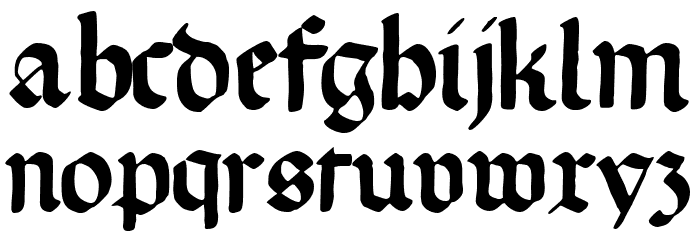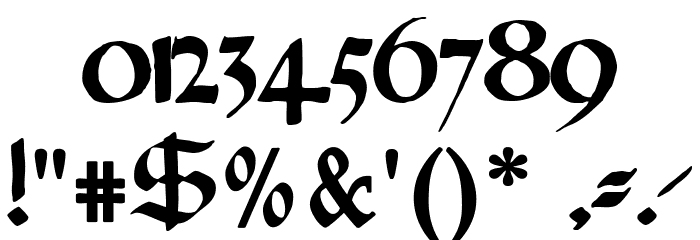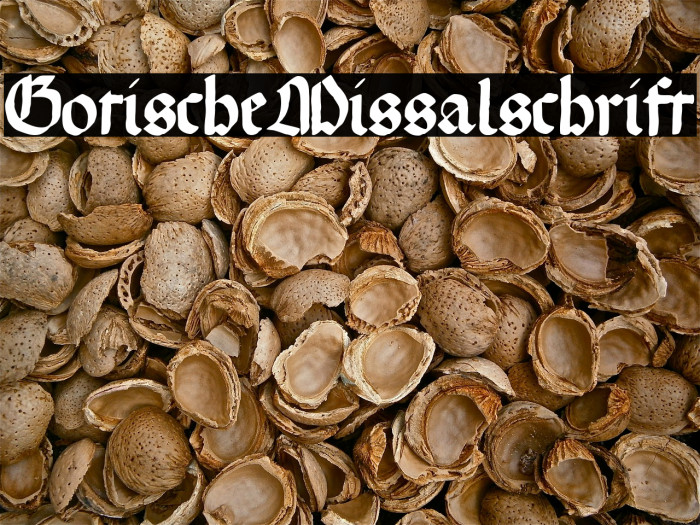
GotischeMissalschrift Font
This font is a striking example of Blackletter style, characterized by its intricate and ornate design. The letters are bold and angular, with sharp edges and a medieval aesthetic. The uppercase letters feature elaborate flourishes, while the lowercase letters maintain a consistent thickness, adding to the overall dramatic appearance. The numbers and special characters are equally stylized, maintaining the font's cohesive look. This font evokes a sense of history and tradition, making it ideal for projects that require a touch of elegance and formality.
A bold, ornate Blackletter font with a medieval aesthetic.
- Proposed Projects: Ideal for historical documents, certificates, invitations, or branding that requires a classic and formal touch.
- Character Spacing: Tight
- Overall Style: Vintage
- Use Case: Headlines, Logos, Certificates